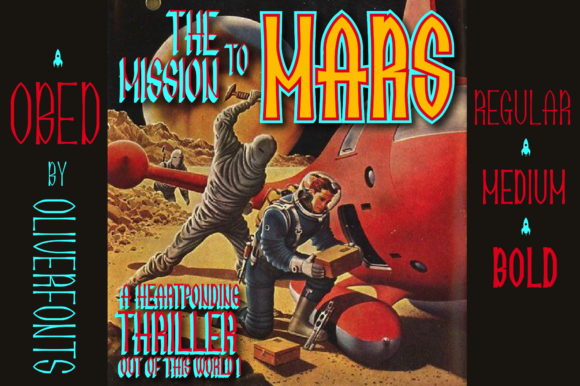
Behold Obed Font, a display font crafted by OLIVERFONTS, a name synonymous with artistic brilliance in the realm of typography. Prepare to be captivated by its quirky charm and undeniable coolness, leaving you in awe of its extraordinary ability to transform your creative visions into captivating realities. Obed is more than just a font; it's a portal to a world where uniqueness and intrigue reign supreme.
With Obed, mediocrity takes a backseat as your projects are propelled into the stratosphere of visual brilliance. Its distinct character adds a touch of enchantment to logos, posters, branding, apparel designs, and social media graphics. Let Obed's playful spirit ignite your imagination and unleash a torrent of creative possibilities.
Obed's inherent versatility knows no bounds. Its adaptability shines in a myriad of design applications, making it the perfect choice for those seeking a font that seamlessly blends with their creative aspirations. Whether it's the bold statement of a logo, the captivating charm of a poster, the distinct identity of a brand, the eye-catching appeal of apparel designs, or the dynamic energy of social media graphics, Obed rises to the occasion with effortless grace.
Apart from its inherent beauty, Obed possesses an intrinsic charm that speaks to the heart. Its playful demeanor invites you to embrace your creativity and embark on a journey of self-expression. With Obed as your font companion, your designs will exude a captivating personality that resonates with your audience, leaving an indelible mark on their minds.